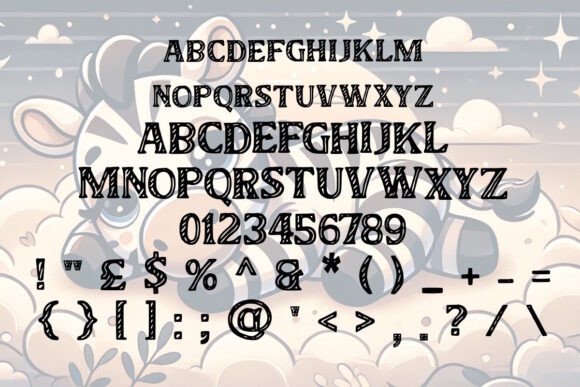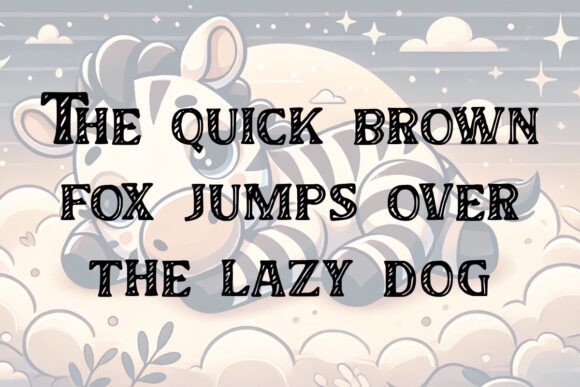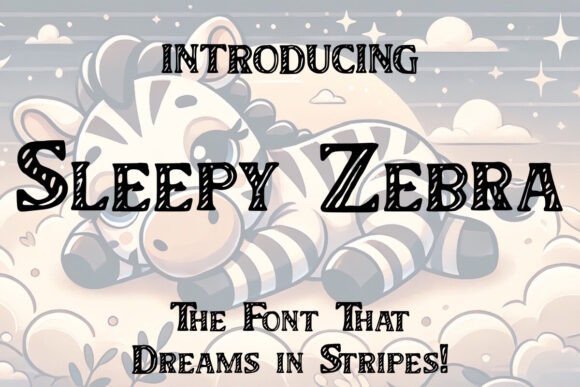
Introduction to Sleepy Zebra Font
Sleepy Zebra is a bold yet laid-back font, full of vintage charm with a textured, hand-drawn feel.
Its slightly rough edges and strong letterforms give it the look of an old-world engravingβ€”perfect for designs that need a touch of character with a relaxed, dreamy twist Whether you’re creating for retro posters, storybook titles, or anything with a whimsical edge, Sleepy Zebra is here to add a bold yet cozy vibe to your work.
Key Features of Sleepy Zebra Font